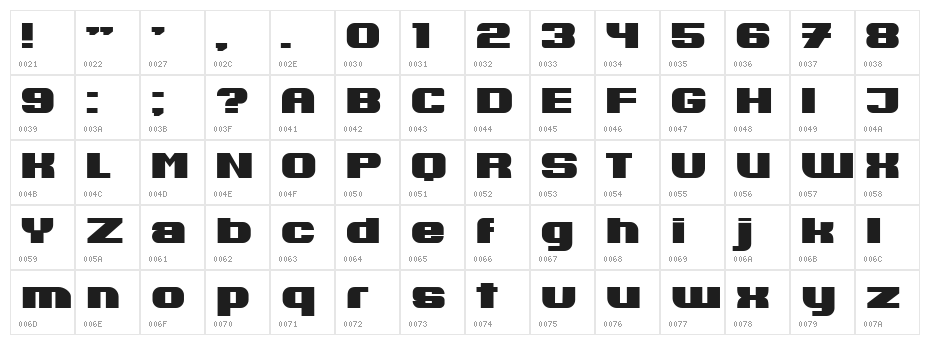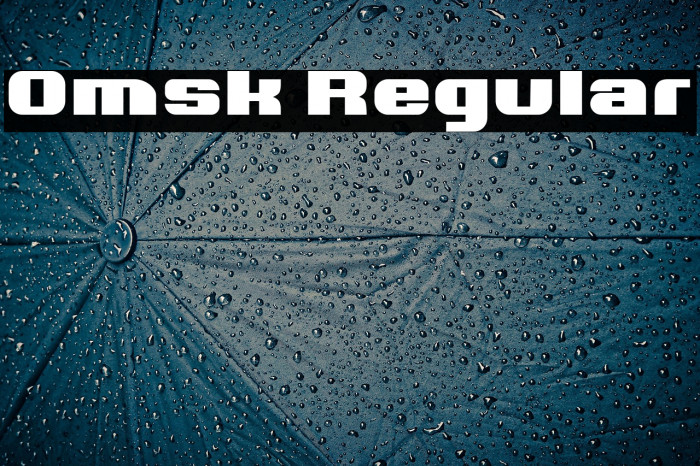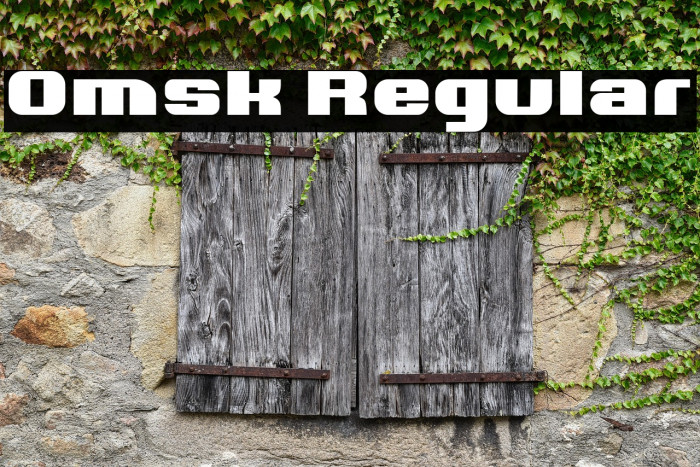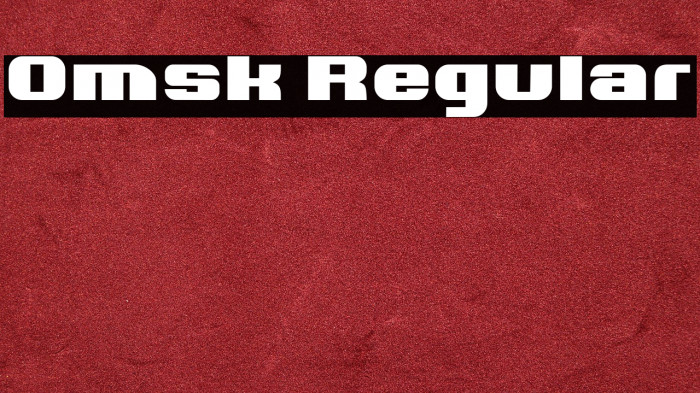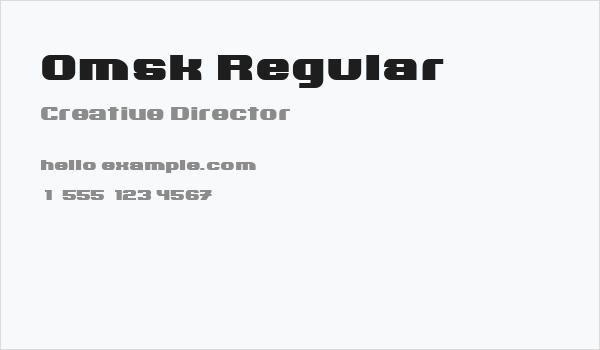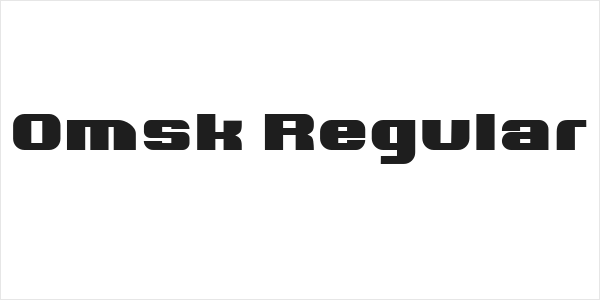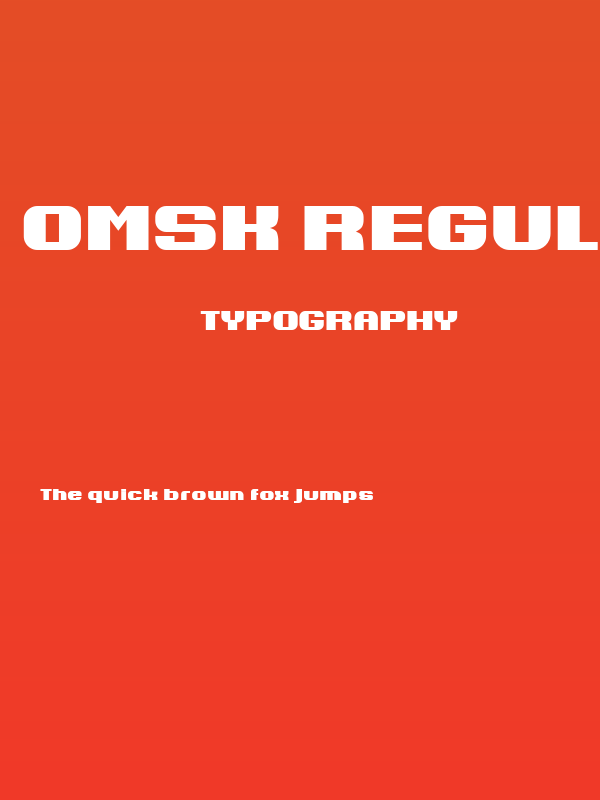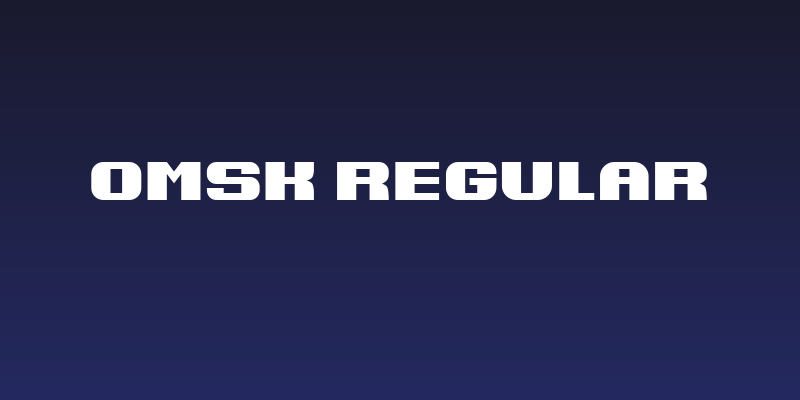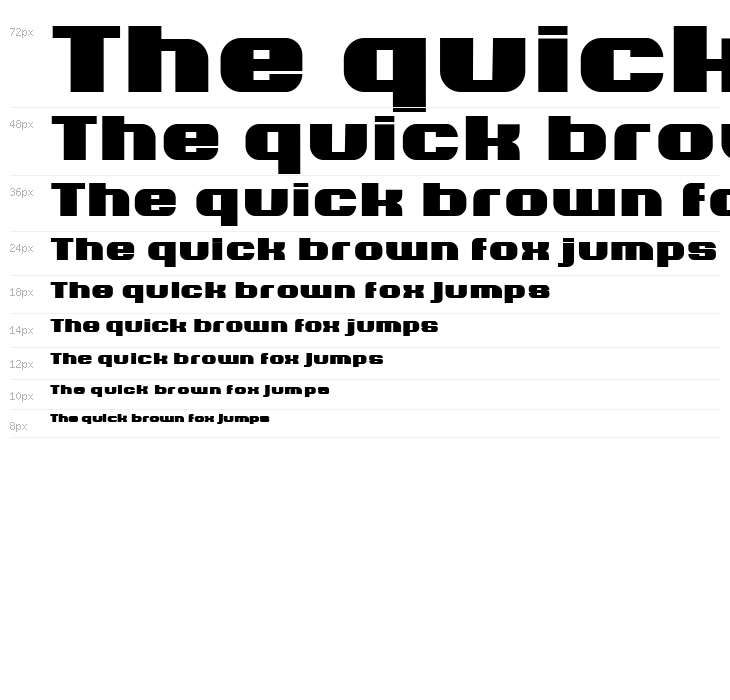
Omsk Regular Font
Omsk Regular Description
This font features a bold, geometric design with strong, block-like characters. The uppercase letters are uniform in height, creating a powerful and cohesive appearance. The lowercase letters maintain the same boldness, with rounded edges that add a touch of softness to the overall look. The numerals are equally robust, ensuring consistency across all character sets. Special characters are designed with the same bold, geometric style, making them stand out effectively. The font's design is ideal for making a strong visual impact, with its high contrast and wide character spacing contributing to its legibility and distinctiveness.